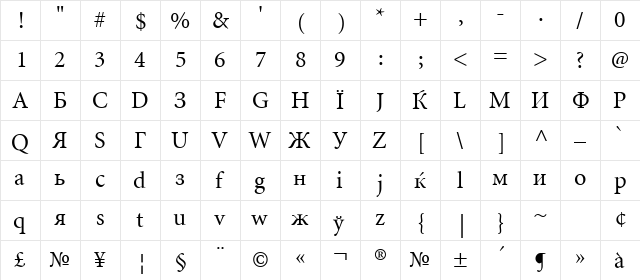
Perestroika Regular
| Foundry | StereoType |
Design Context for Perestroika Typeface
Perestroika takes a measured approach to typography — its balanced proportions and neutral character make it a reliable workhorse for both digital and print work.